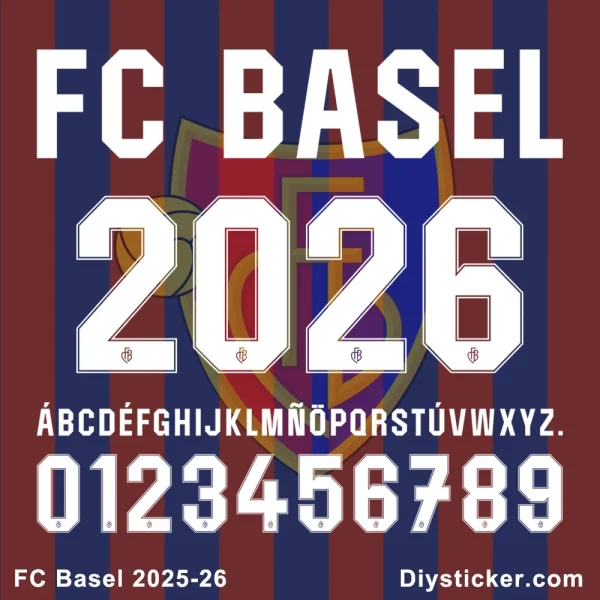
Design with the tradition of Swiss football using the official FC Basel 2025-26 Font. This professionally crafted typeface replicates the club’s distinctive lettering, ideal for creating authentic jerseys, fan merchandise, and digital content for FCB supporters.